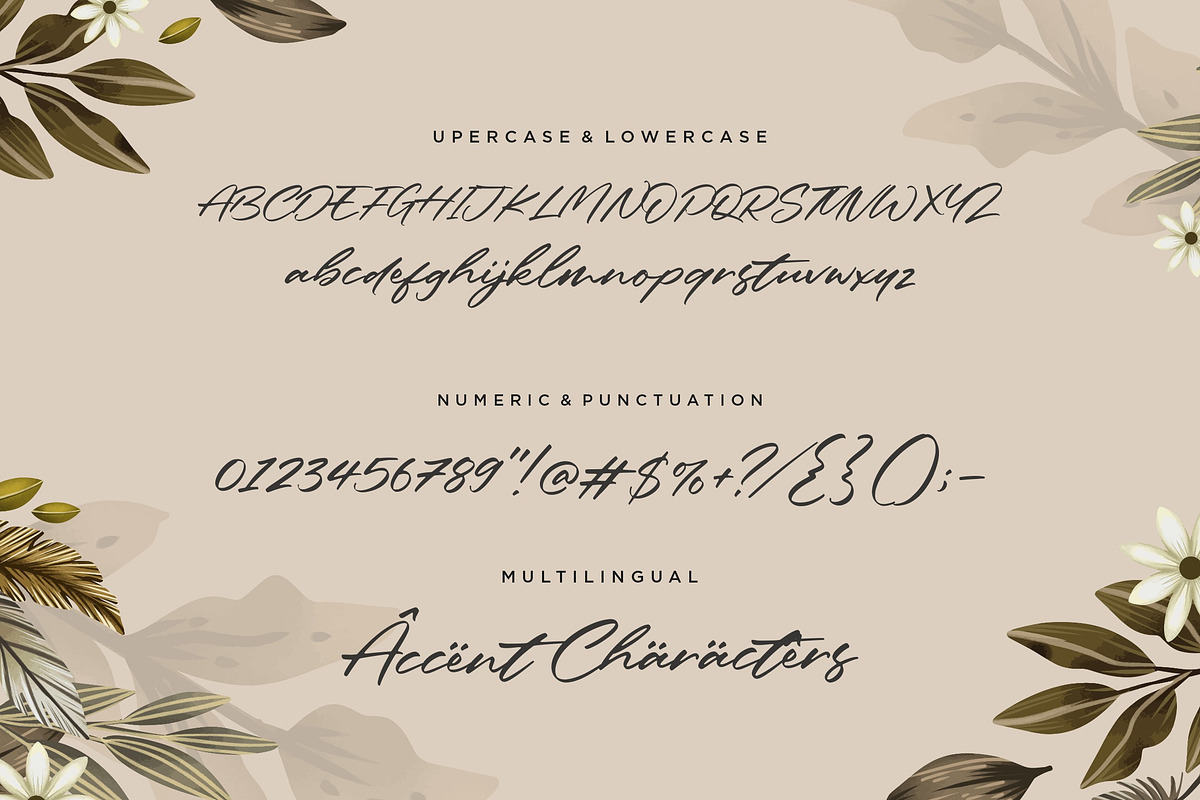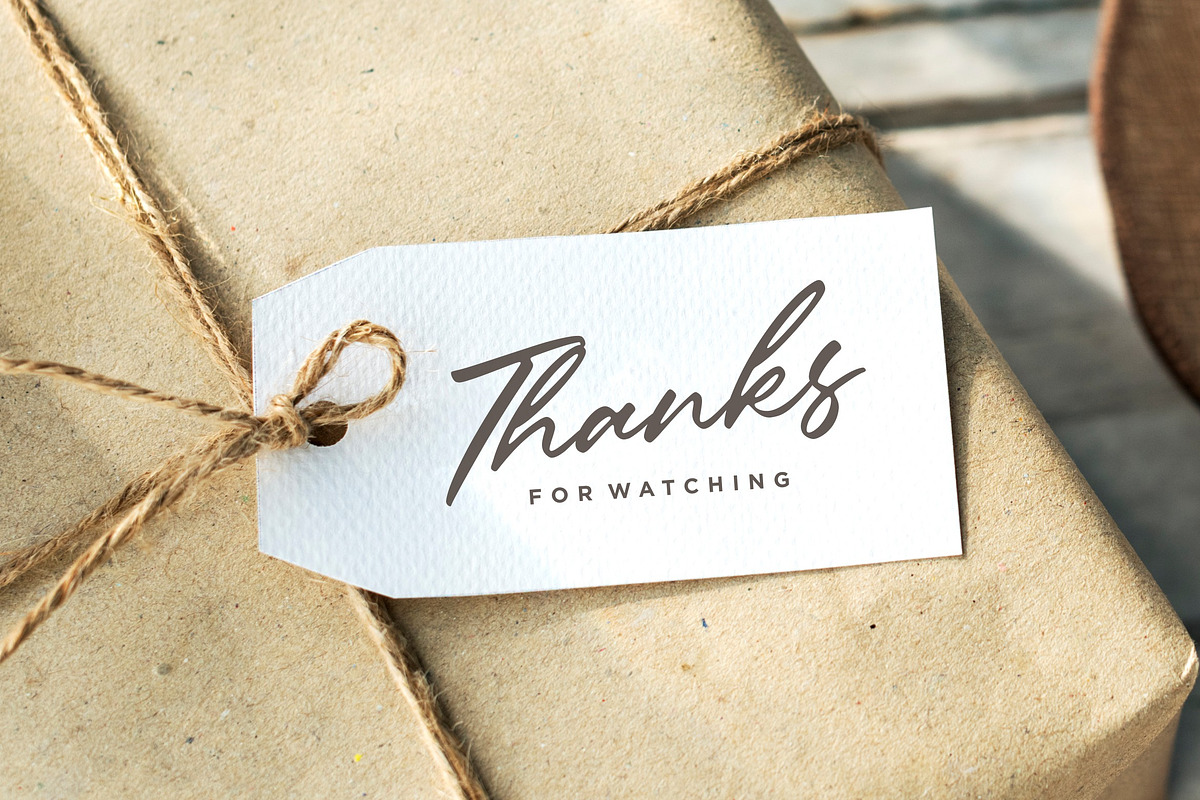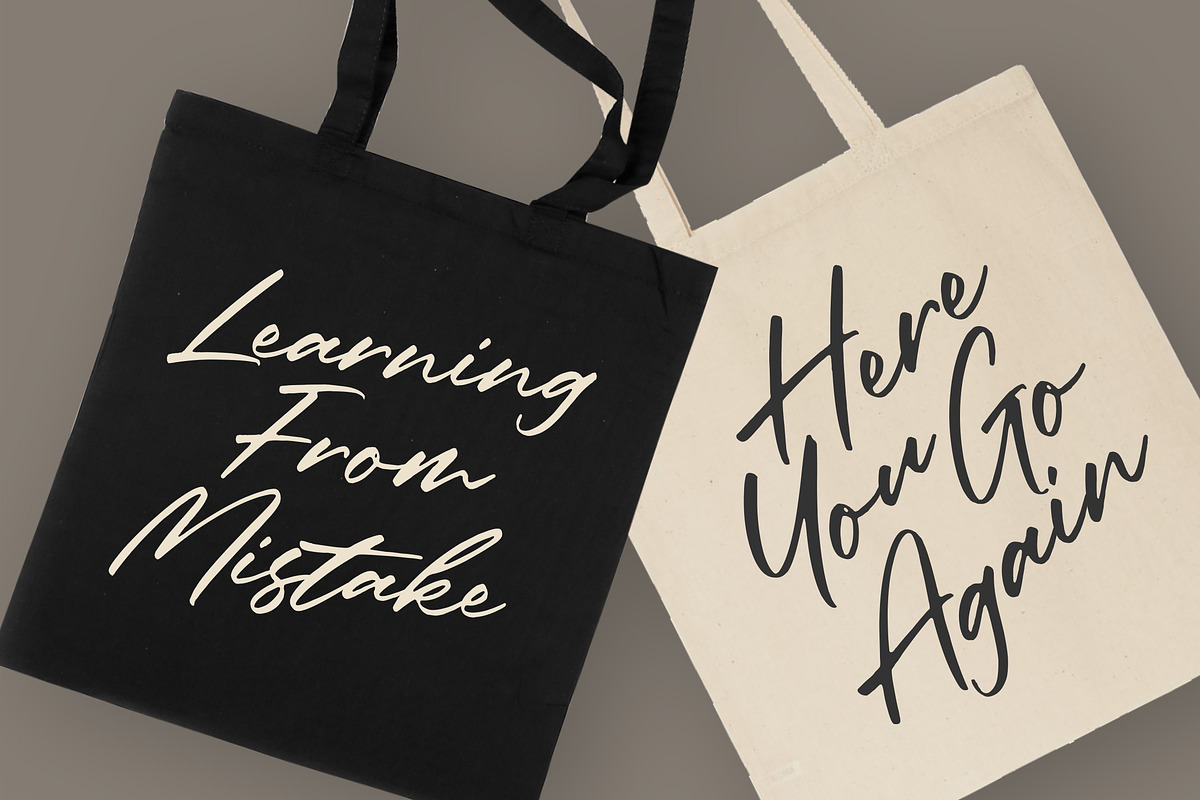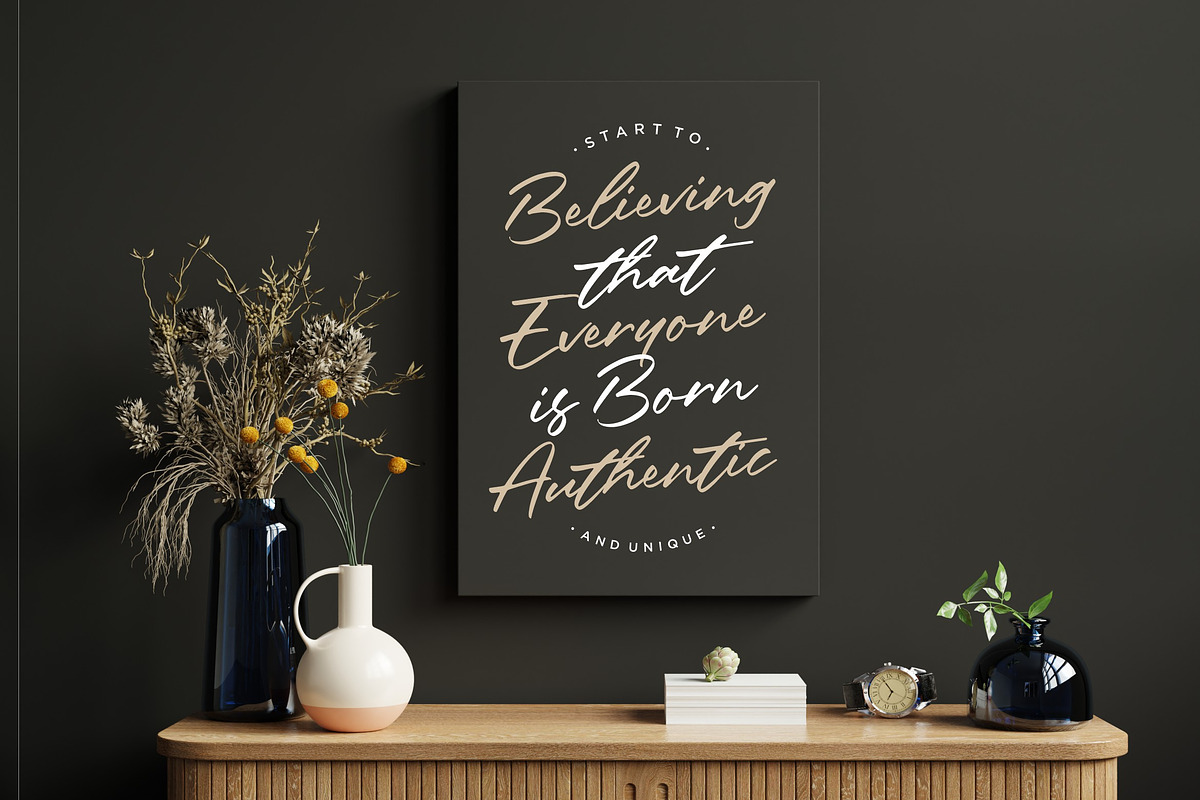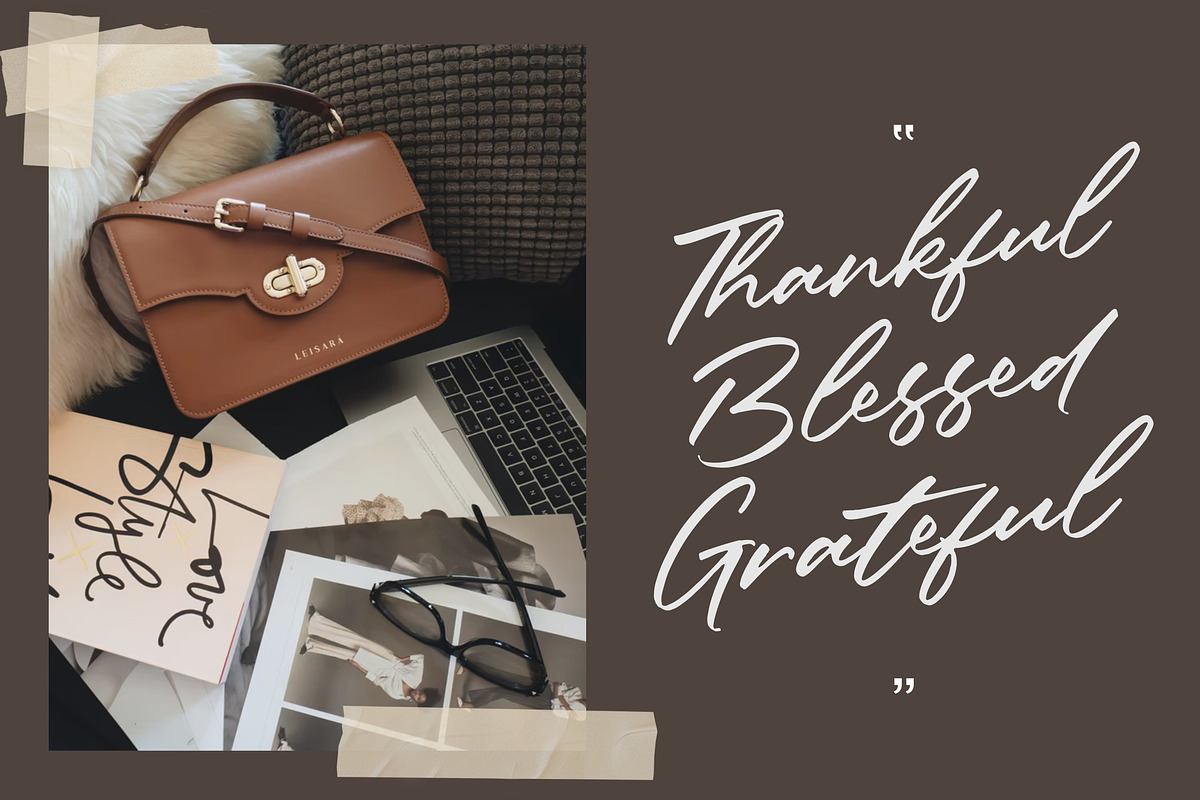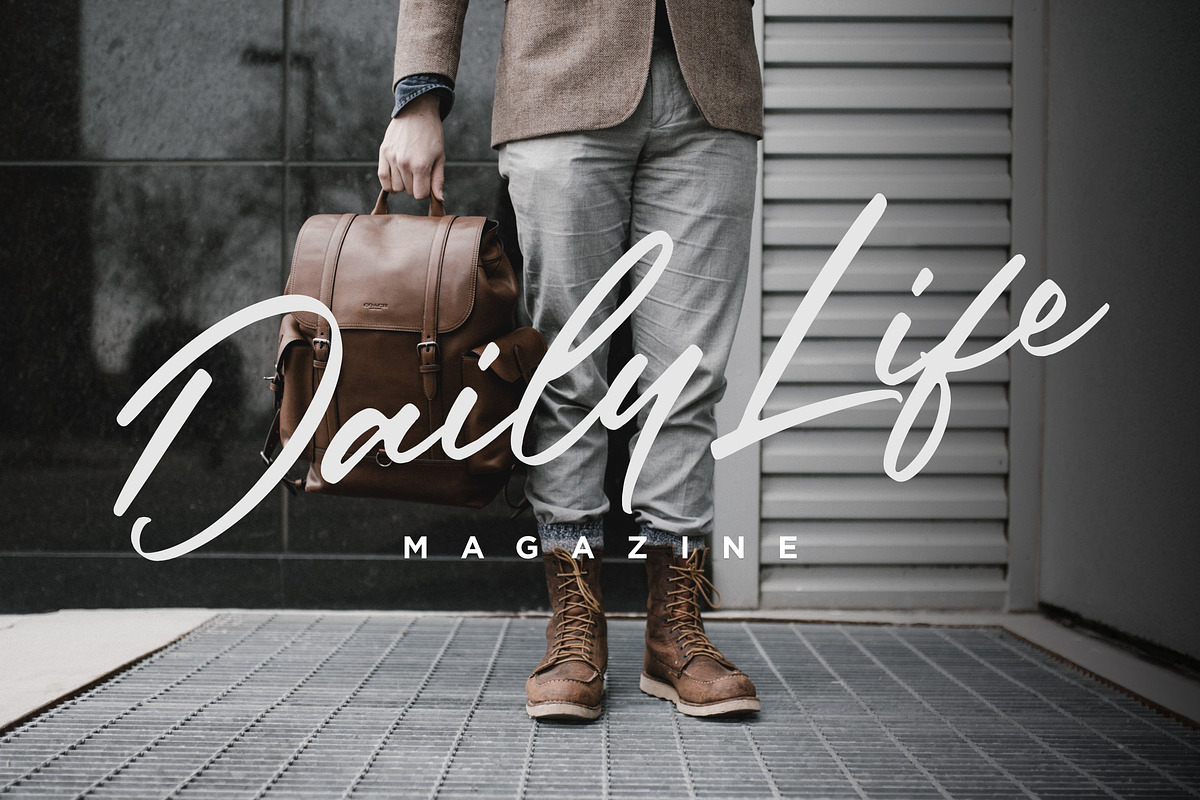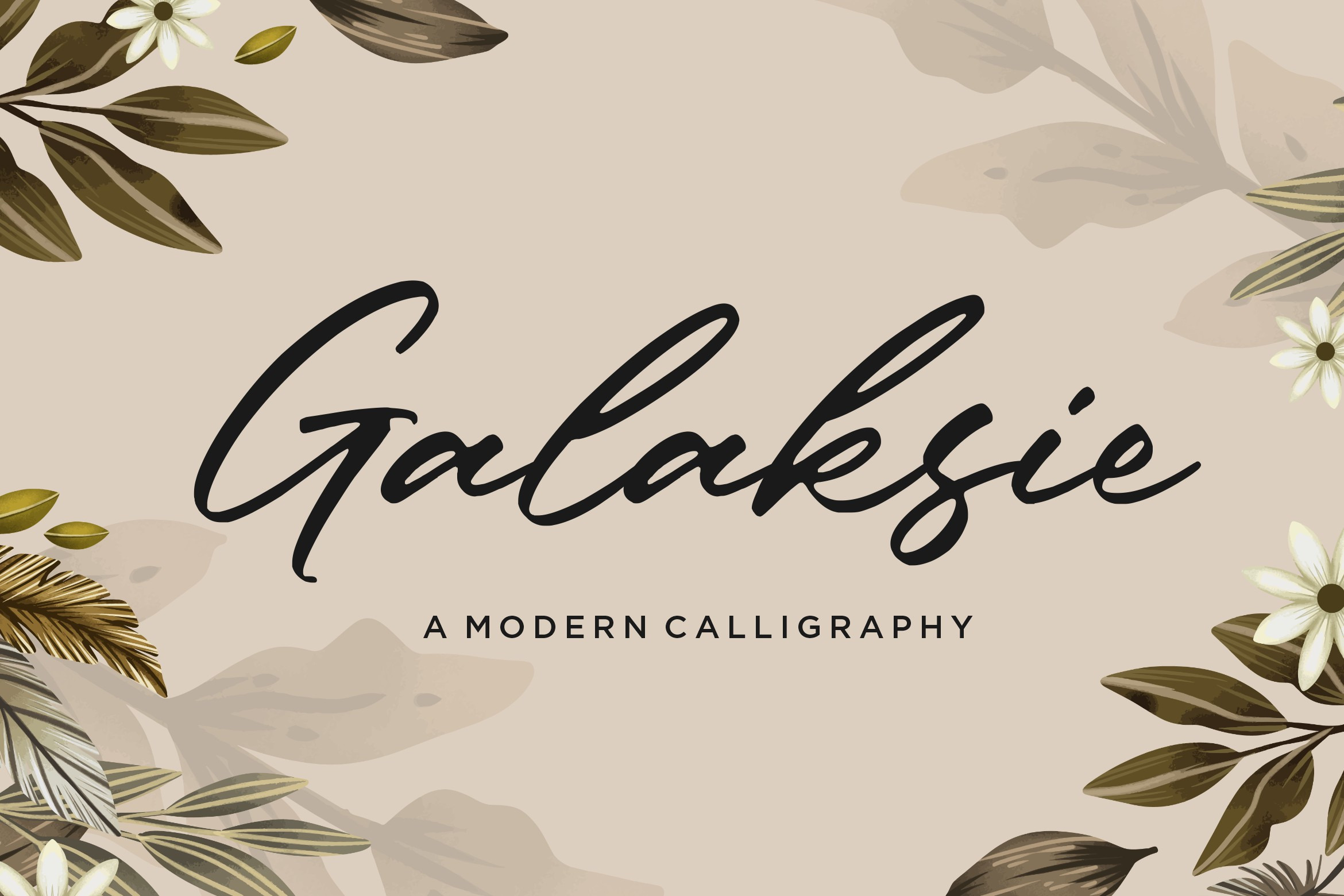
Galaksie - Modern Calligraphy Font
Proudly Present, Galaksie Font
Galaksie is a stylish script font with a contemporary atmosphere and impeccable form, inspired by timeless classic calligraphy. Not too thin and not too thick, balanced and varied, this font was designed to enhance the beauty of your projects.
- also multilingual support